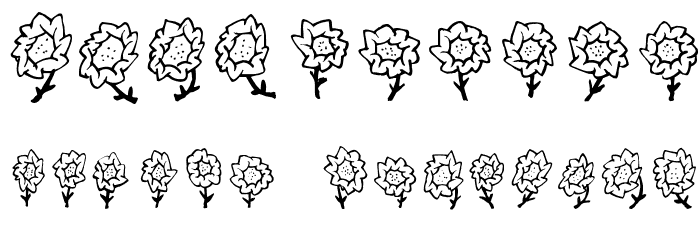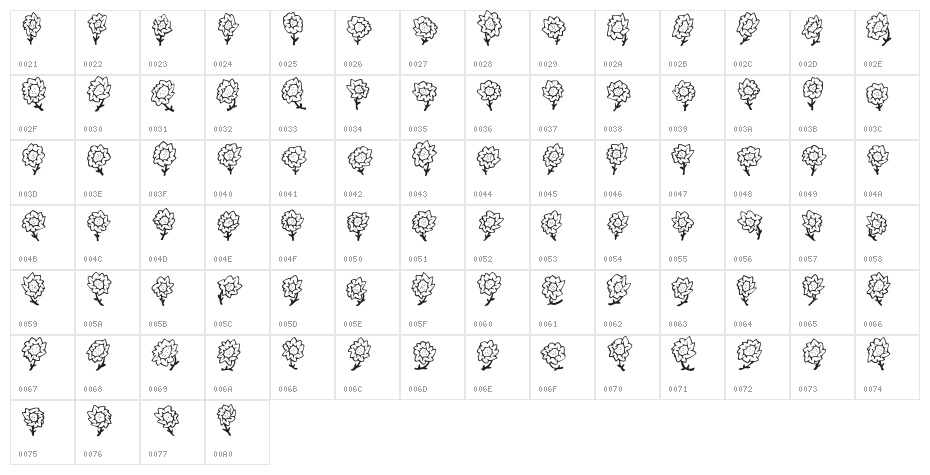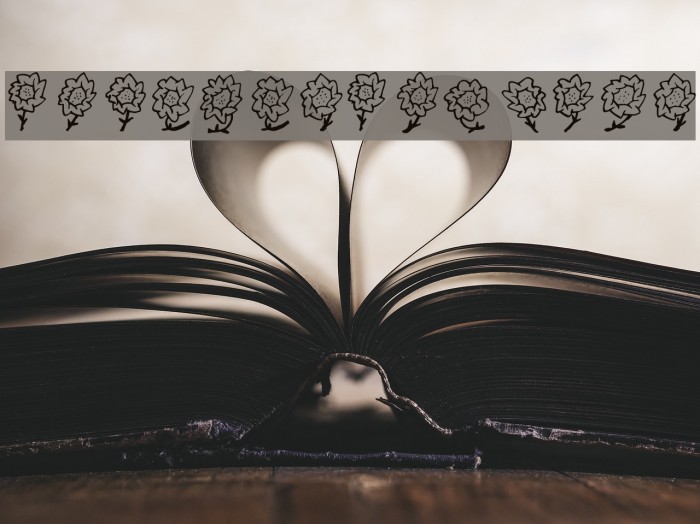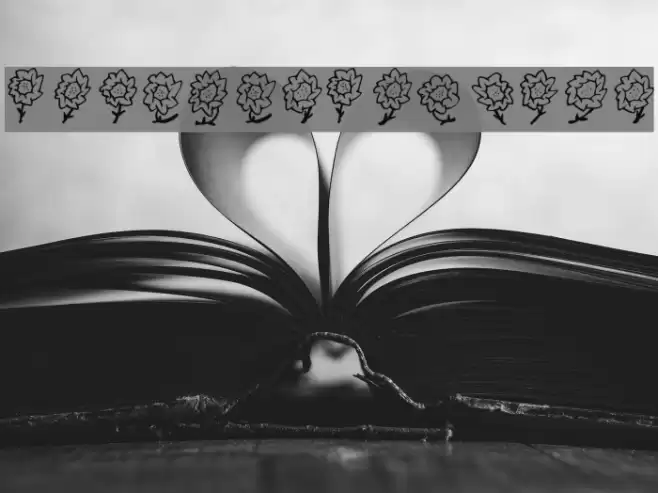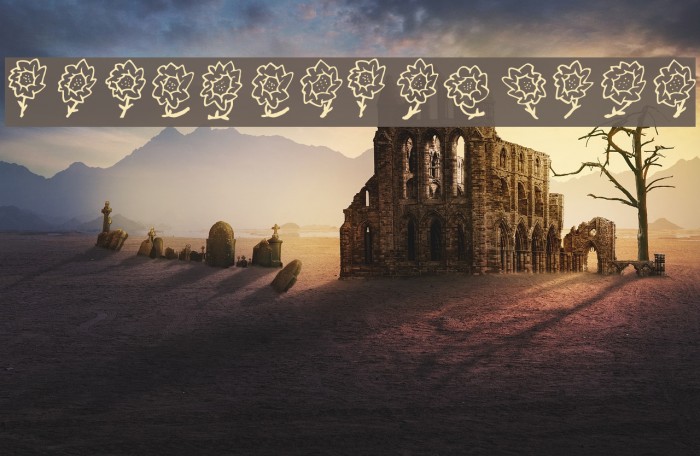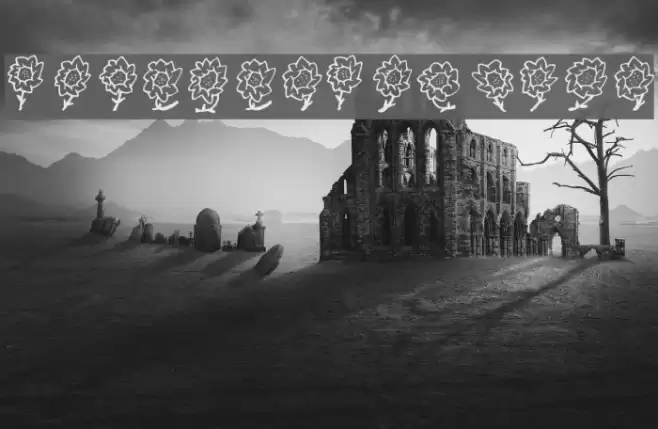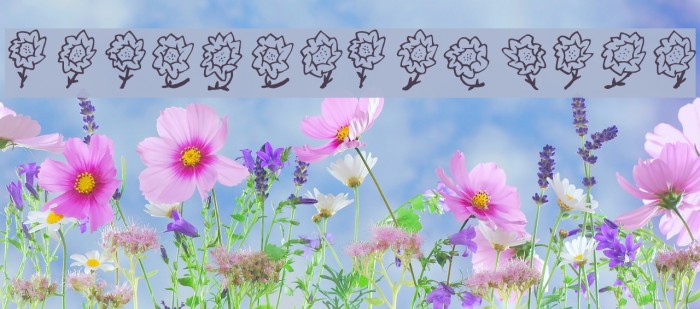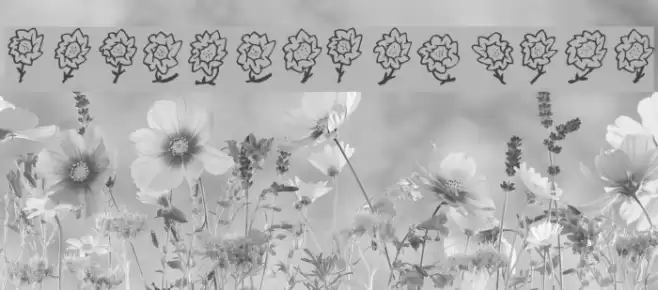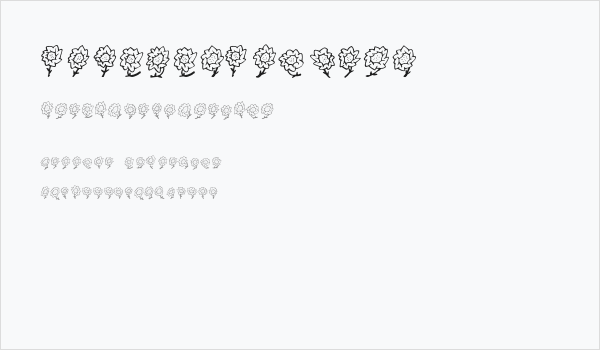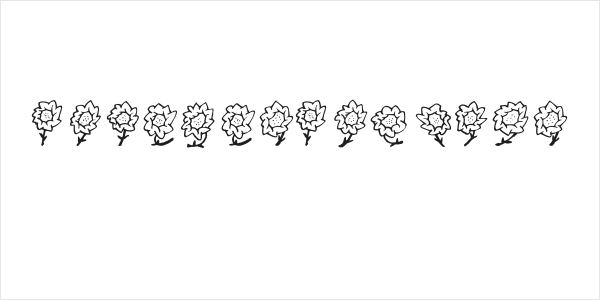
FEMajasFlowers Font
FEMajasFlowers Description
This design features a series of whimsical, hand-drawn flower illustrations, each with a unique and playful character. The flowers are depicted with bold outlines and simple, stylized petals, giving them a cartoonish and lively appearance. The consistent use of black and white enhances the playful nature of the design, making it versatile for various creative projects. The flowers vary slightly in shape and size, adding to the charm and individuality of each character.
| Overall Style | Playful and Whimsical |
| Use Case | Decorative elements, Illustrations, Branding |
| Proposed Projects | Ideal for children's book illustrations, greeting cards, playful branding, or decorative patterns. |